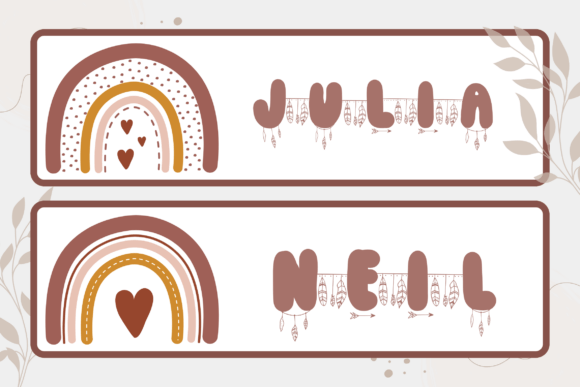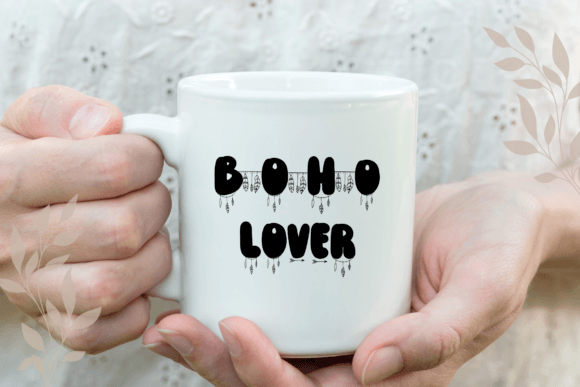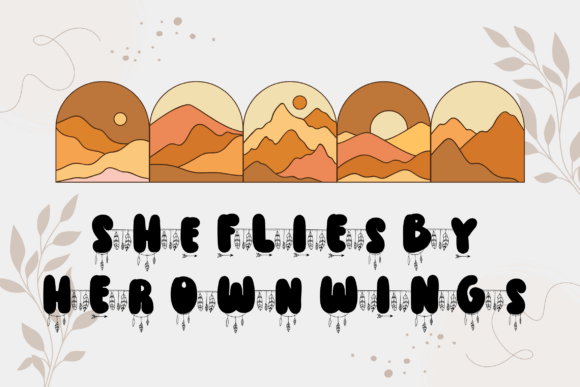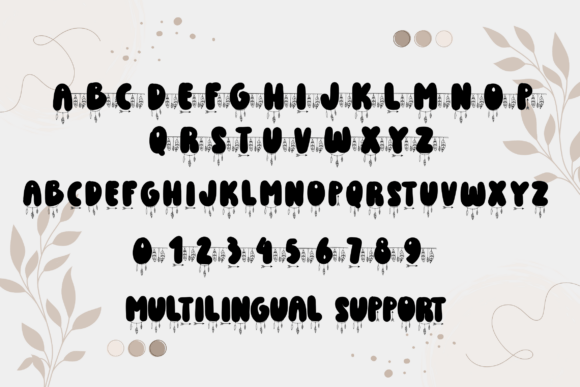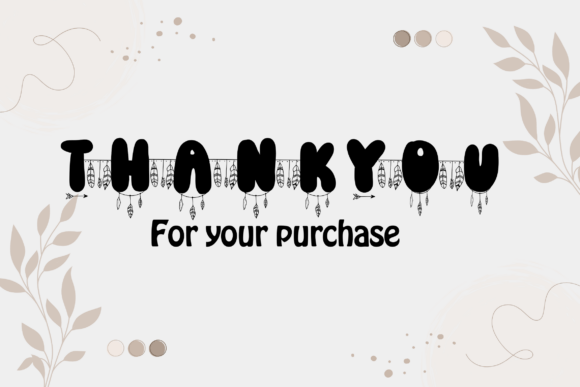
Introducing the Boho Farmhouse Font: A Timeless Typeface for Rustic Elegance and Bohemian Flair
Are you a designer or crafter looking for a font that embodies the perfect blend of rural farmhouse style and bohemian artistry? Look no further than the Boho Farmhouse Font. This distinctive typeface is designed to bring a touch of rustic elegance and handmade charm to your design projects, making it an ideal choice for a wide range of applications.
A Harmonious Fusion of Styles
The Boho Farmhouse Font is a masterful blend of two distinct styles: the rustic charm of farmhouse design and the free-spirited nature of bohemian artistry. This unique fusion results in a font that is both sophisticated and inviting, with a rich and organic allure that is sure to captivate your target audience.
With its artistic strokes and handmade appeal, the Boho Farmhouse Font is perfect for designers and crafters who want to add a touch of warmth and personality to their work. Whether you’re creating farmhouse signs, DIY crafts, wedding invites, or branding materials, this font is sure to bring a level of depth and character that sets your designs apart.
Versatility and Warmth
One of the standout features of the Boho Farmhouse Font is its versatility. This font can be used in a wide range of design projects, from rustic farmhouse signs to bohemian-inspired crafts. Its inviting warmth and handmade appeal make it perfect for designs that require a personal touch, such as wedding invitations, home decor accents, and branding materials.
Whether you’re looking to create a cozy and intimate atmosphere or a more eclectic and artistic vibe, the Boho Farmhouse Font is the perfect choice. Its modish yet traditional design ensures that it will complement a wide range of styles, from contemporary to vintage-reminiscent.
Applications for Designers and Crafters
The Boho Farmhouse Font is a versatile typeface that can be used in a variety of design projects, including:
- Farmhouse signs: Add a touch of rustic elegance to your farmhouse signs with the Boho Farmhouse Font.
- DIY crafts: Bring a handmade spirit to your DIY crafts with this charming font.
- Wedding invites: Make your wedding invitations truly special with the Boho Farmhouse Font.
- Branding materials: Add a signature touch to your branding materials with this distinctive typeface.
- Home decor accents: Create cozy home decor accents with a personal touch using the Boho Farmhouse Font.
Why Choose the Boho Farmhouse Font?
So why choose the Boho Farmhouse Font for your design projects? Here are just a few reasons:
- Unique and distinctive: The Boho Farmhouse Font is a one-of-a-kind typeface that will set your designs apart from the crowd.
- Versatile: This font can be used in a wide range of design projects, from rustic farmhouse signs to bohemian-inspired crafts.
- Handmade appeal: The Boho Farmhouse Font has a rich and organic allure that is sure to captivate your target audience.
- Modish yet traditional: This font combines modern style with traditional charm, making it perfect for both contemporary and vintage-reminiscent designs.
The Boho Farmhouse Font is a timeless typeface that is sure to bring a touch of rustic elegance and bohemian flair to your design projects. With its unique fusion of styles, versatility, and handmade appeal, this font is perfect for designers and crafters who want to add a personal touch to their work.